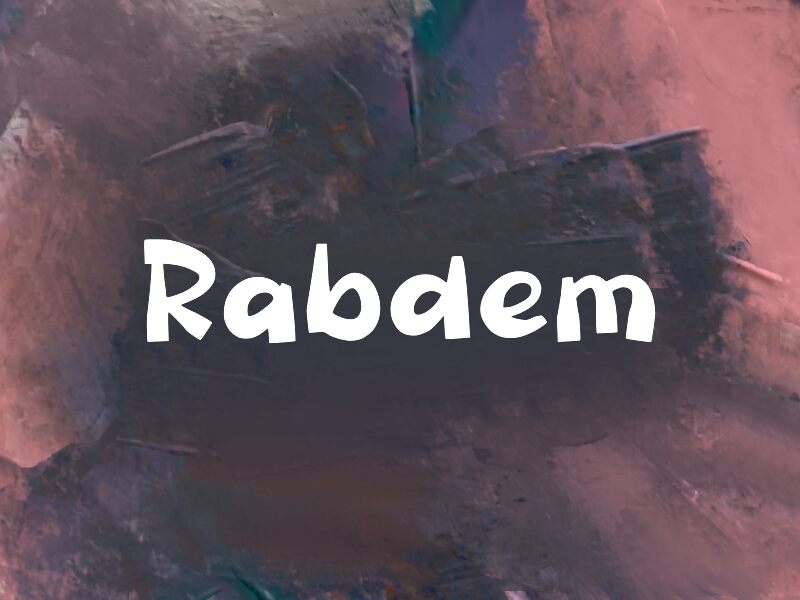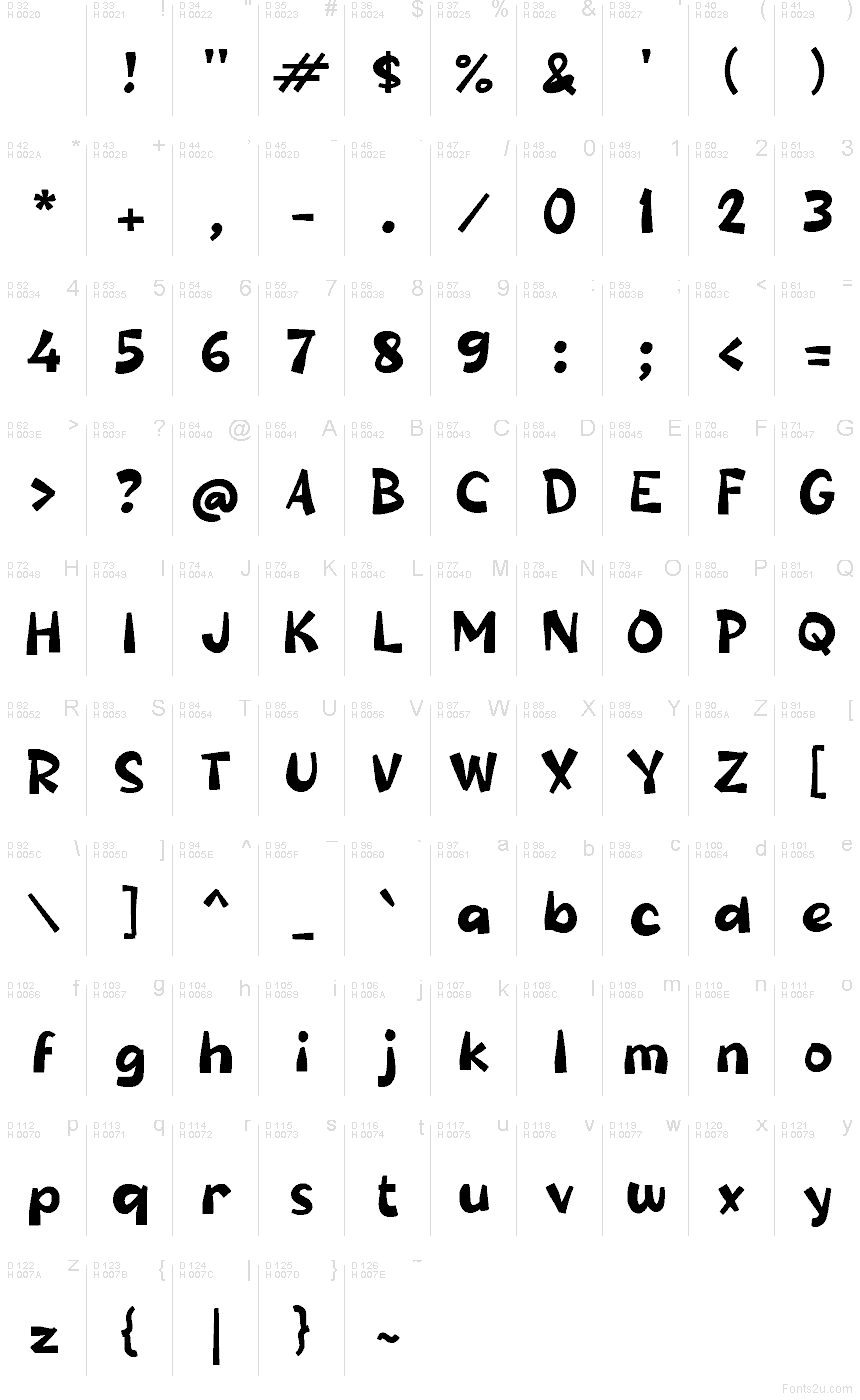
Rabdem
Rabdem font by wepfont.com is a free comic display typeface with bold, inky strokes that feel hand-drawn and happily imperfect. Its chunky curves, loose rhythm, and slightly wobbly shapes give text a carefree, doodled-on-a-notebook energy that grabs attention without feeling aggressive. The letters sit close and cozy, creating a friendly, informal voice that still reads clearly at a glance.
Using Rabdem, this free font shines on kids’ book covers, classroom posters, comic panels, YouTube thumbnails, hobby blogs, and playful branding for snacks or toys. It works beautifully for headlines and short phrases where you want big personality in just a few words. Try pairing Rabdem with a clean sans serif for small body text and keep Rabdem a size or two larger so its lively forms have room to breathe.